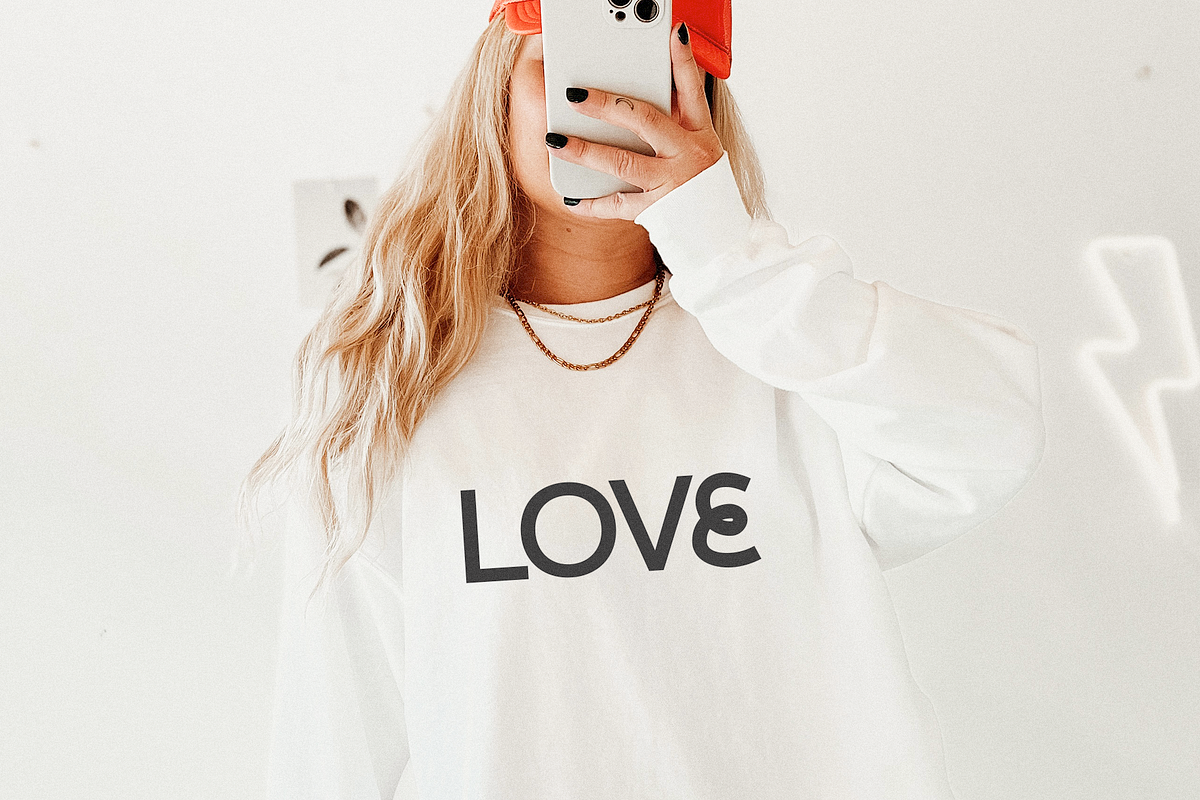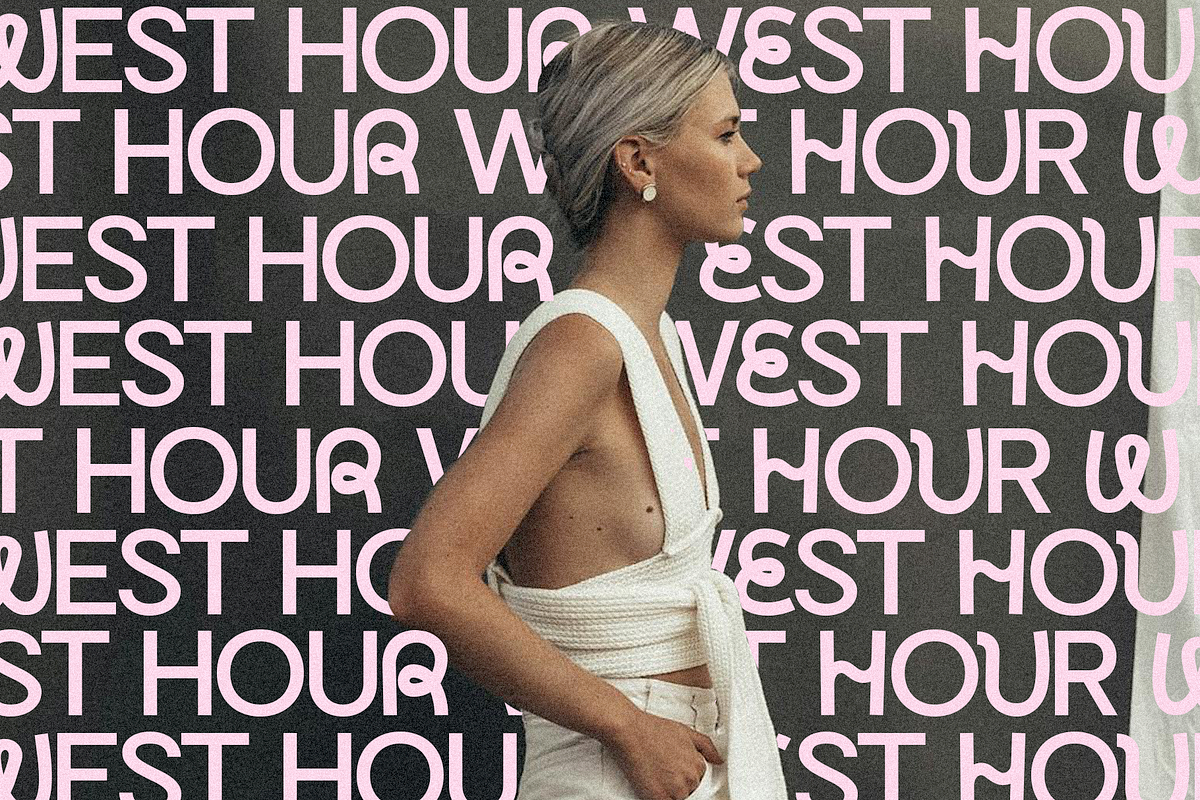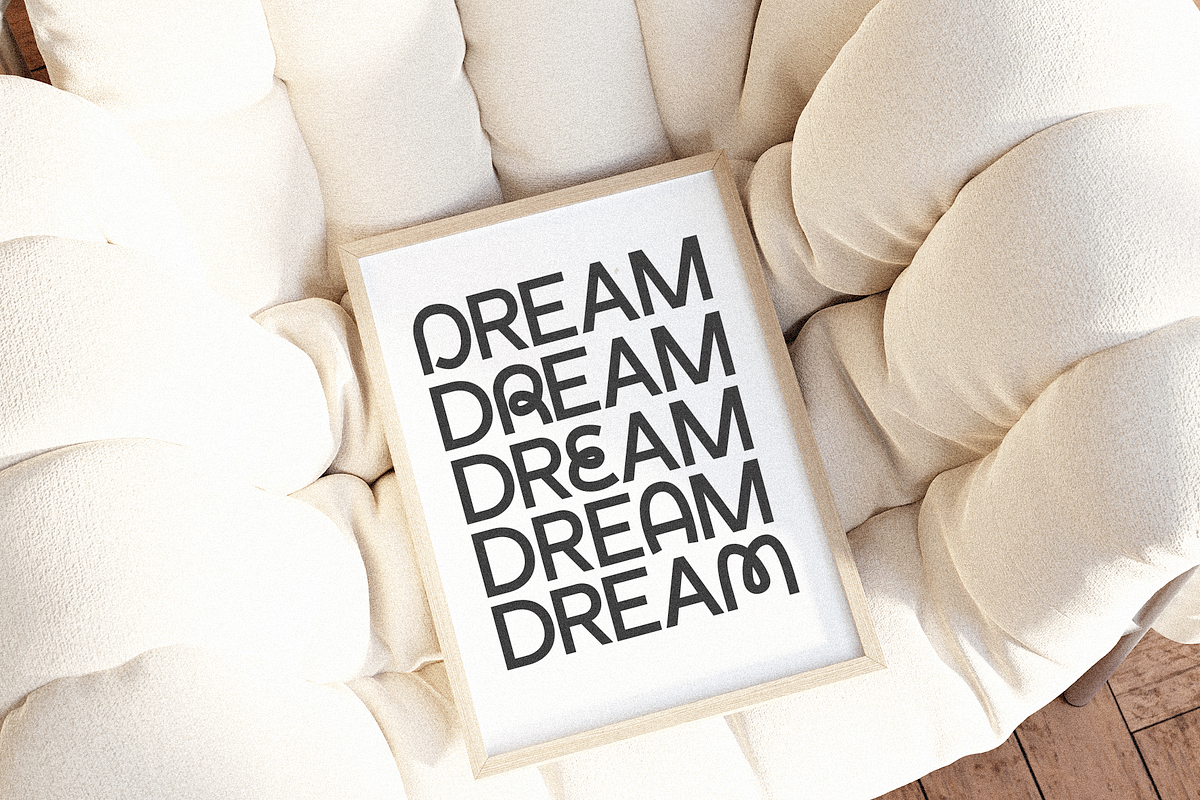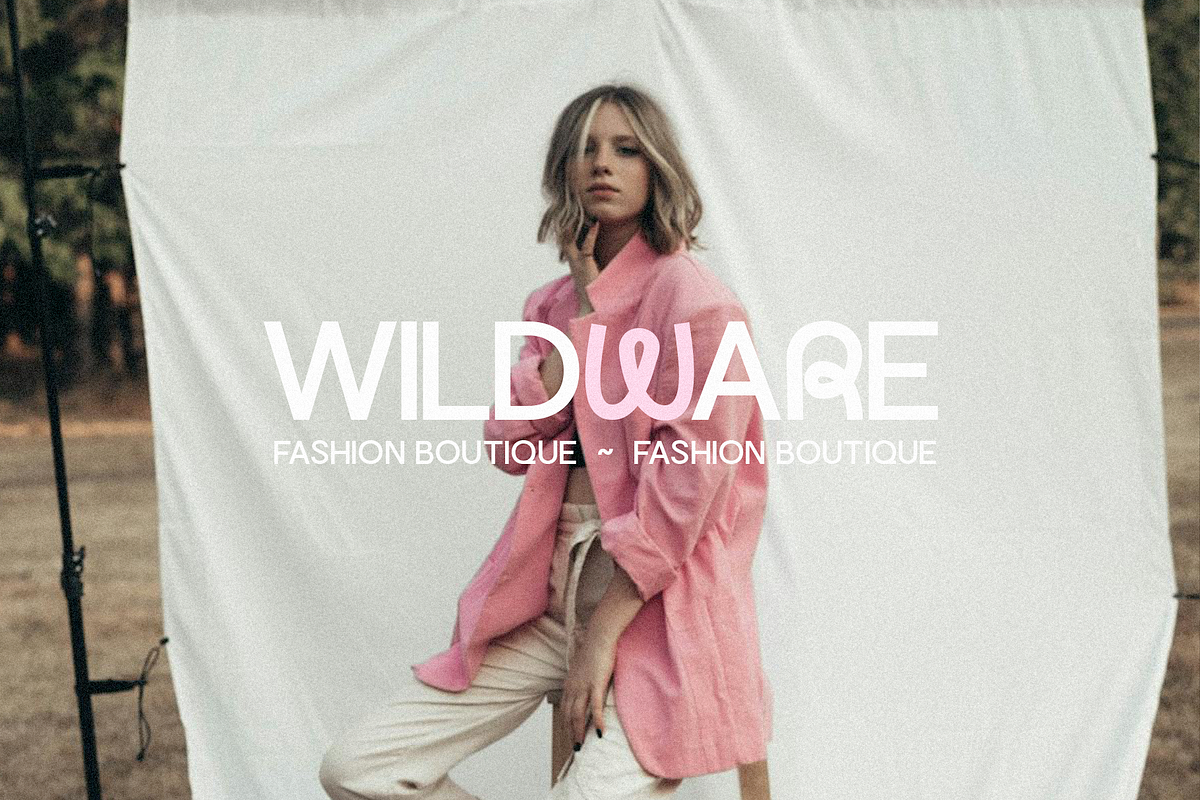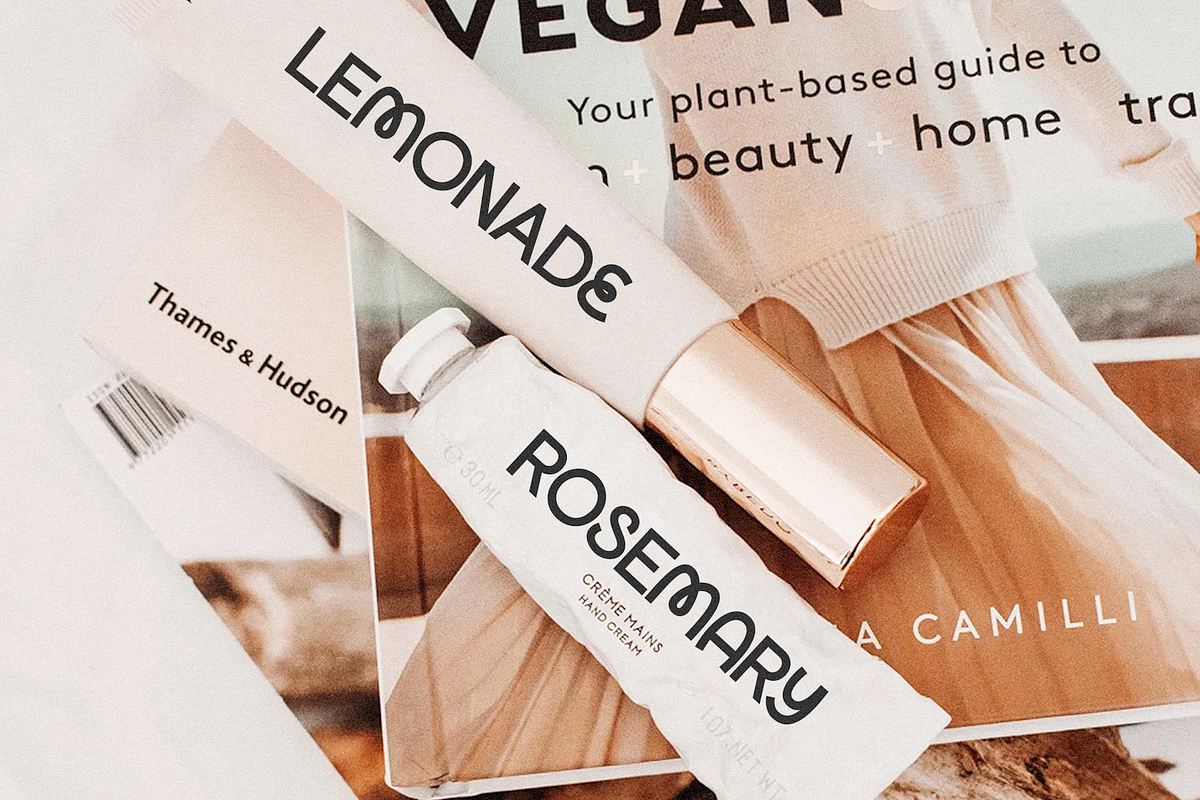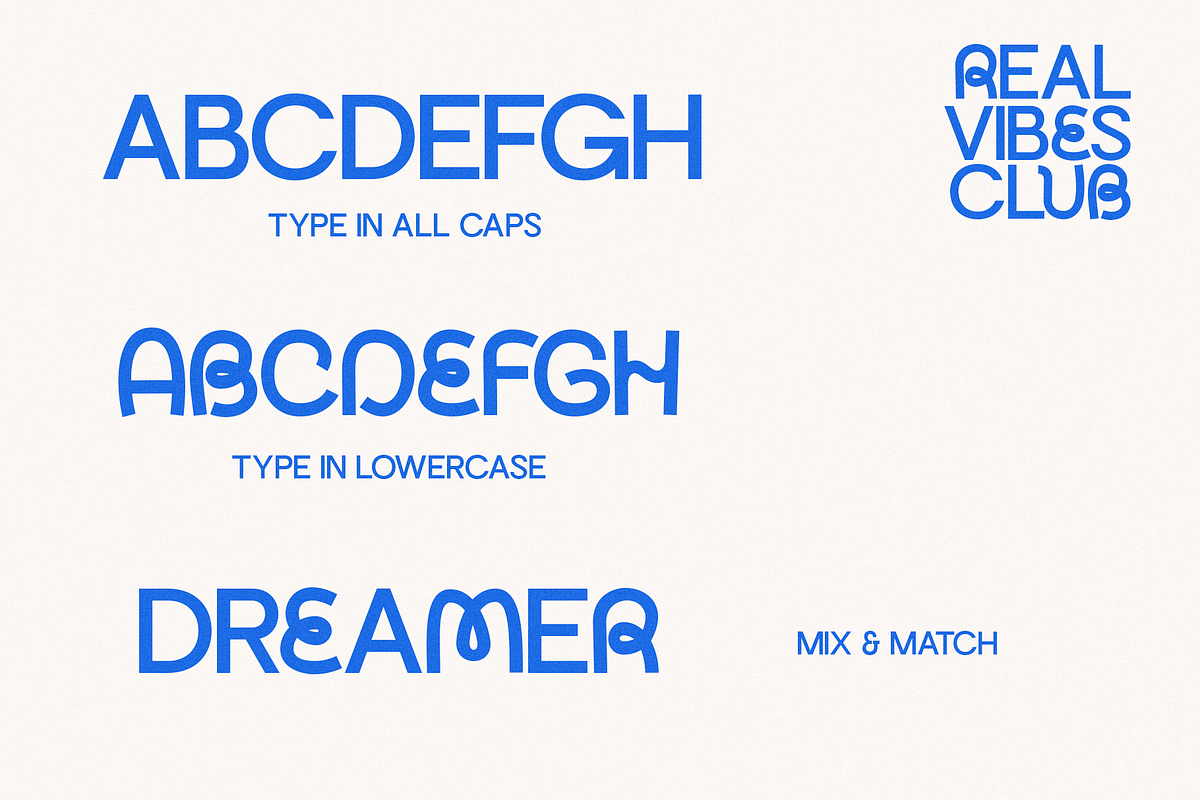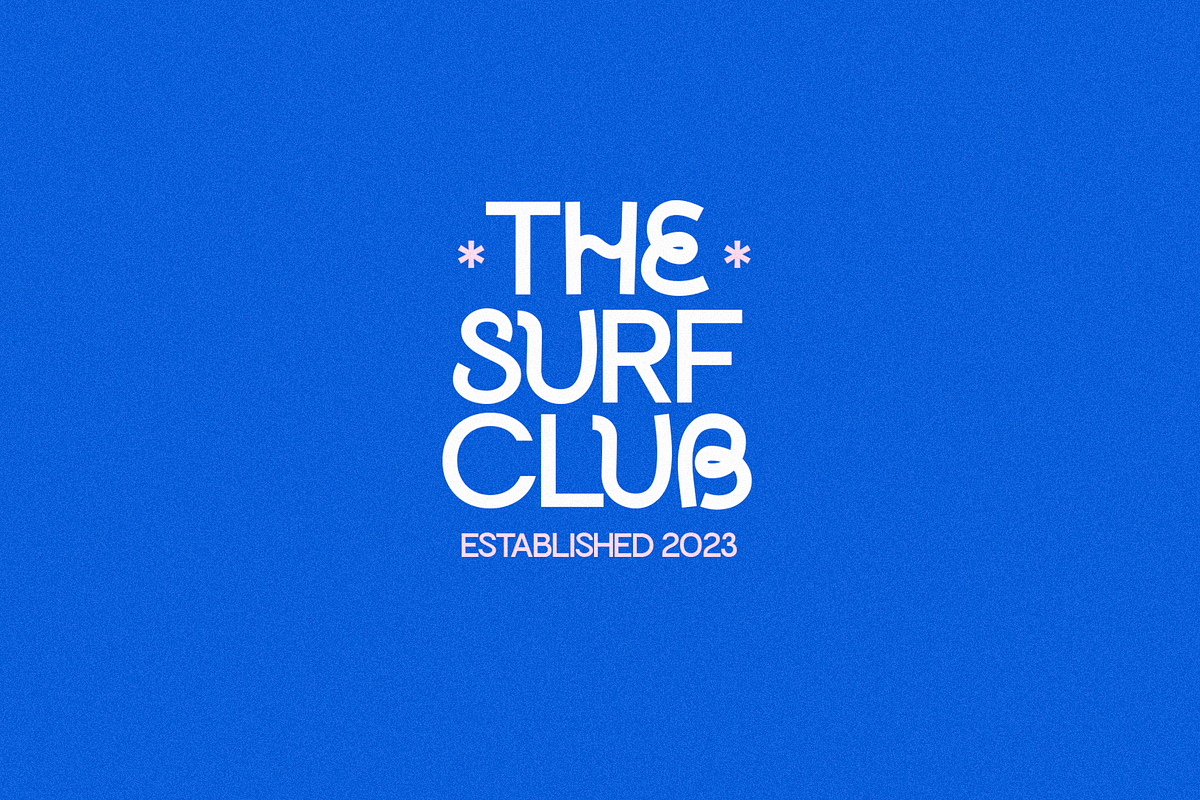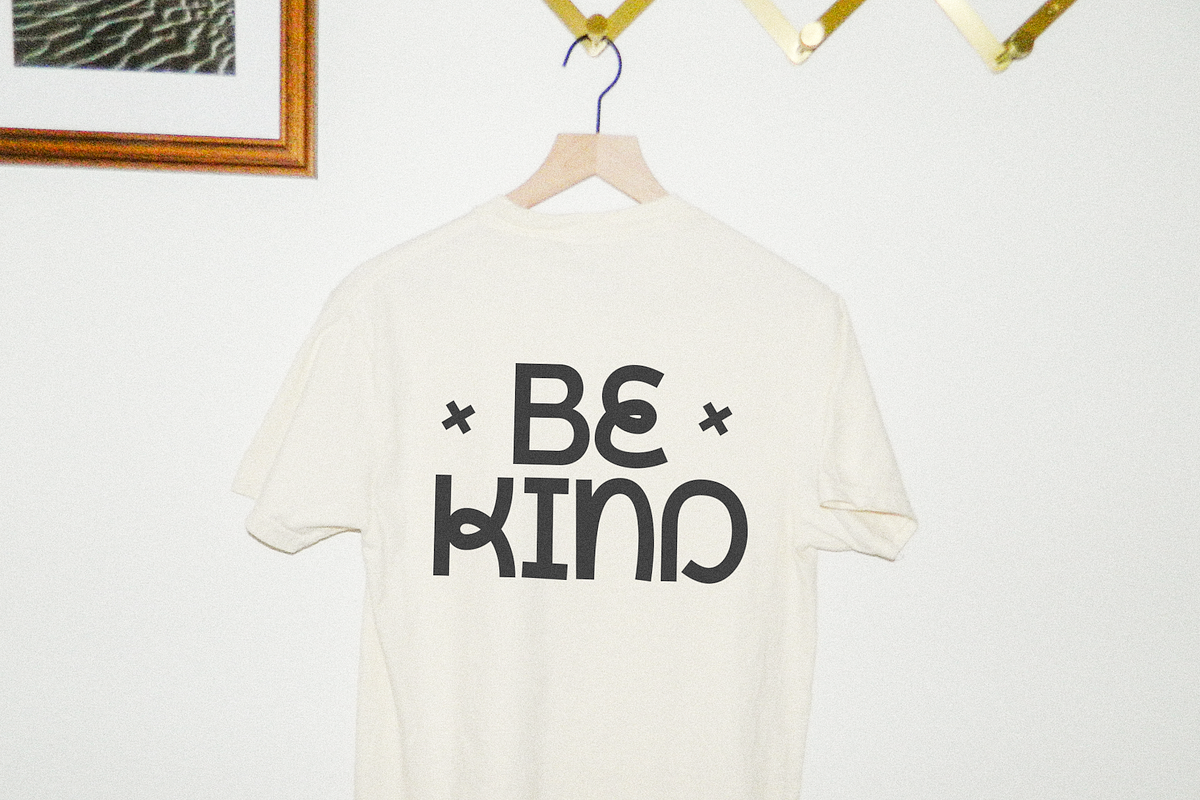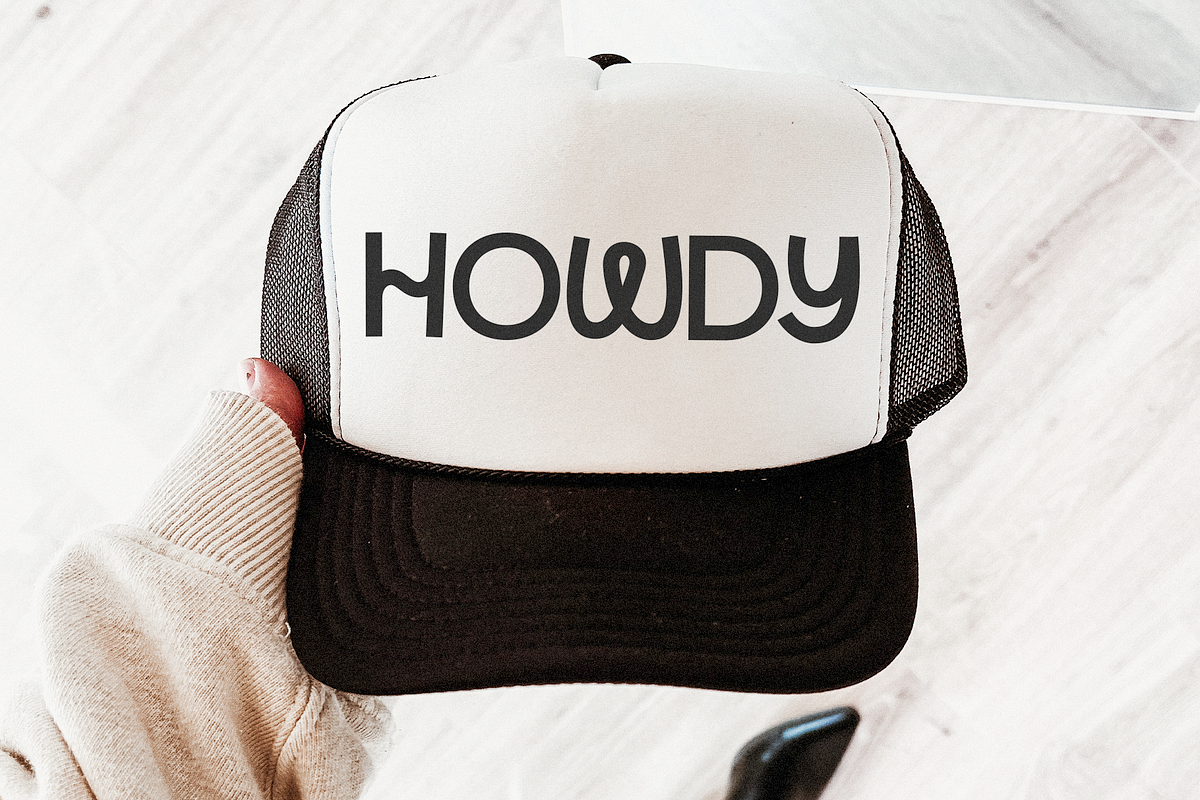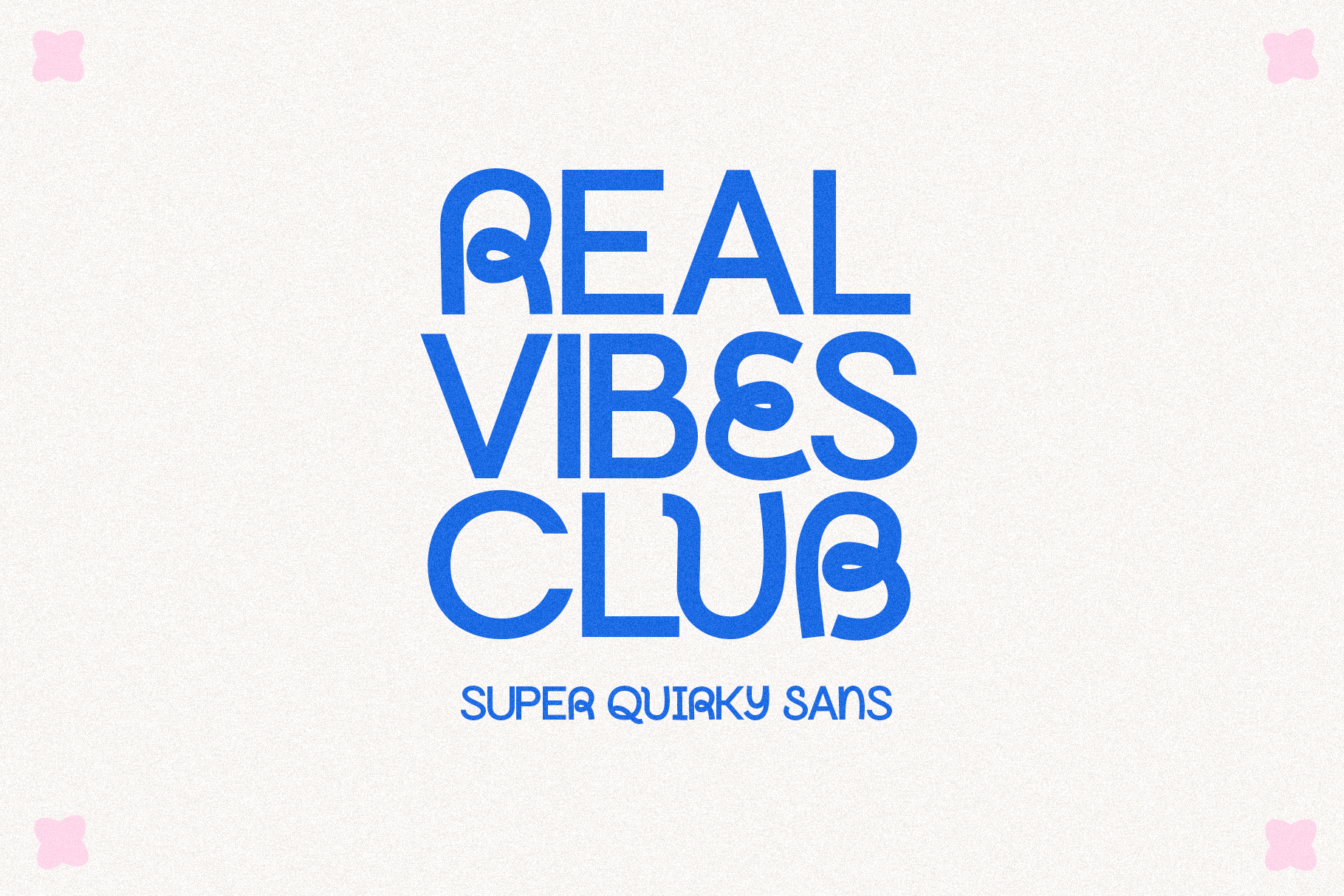
Real Vibes Club | Quirky Sans Font
Real Vibes Club is a quirky sans duo!
Capital Letters feature a hand-crafted sans font and lowercase letters are in a quirky, handwritten style. Mix and match these two to create your own fun look!
Real Vibes Club is perfect for: - logos, branding, svg files, greeting cards, procreate, shirts, posters, social media, planner prints and more!